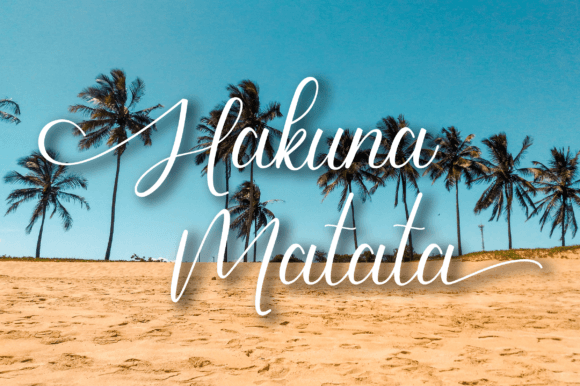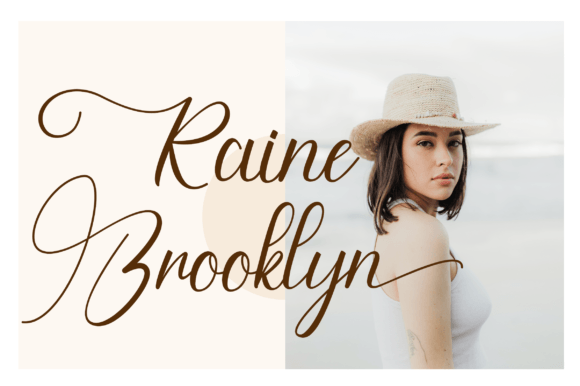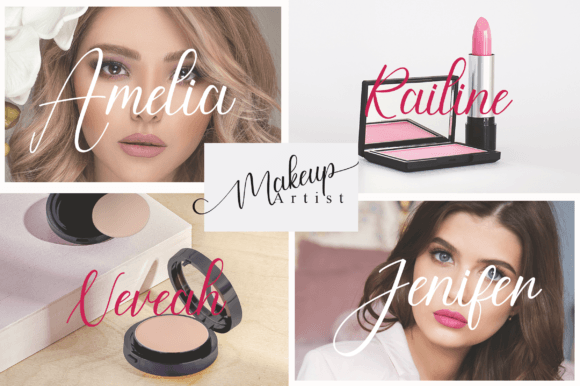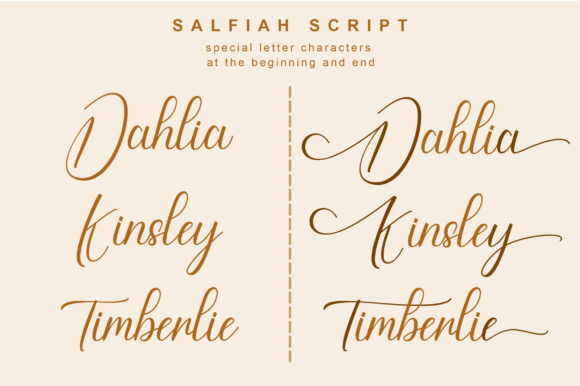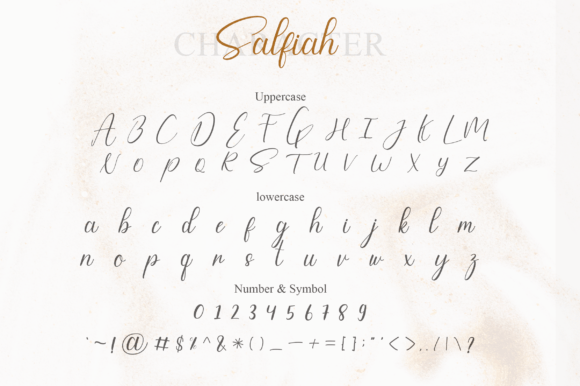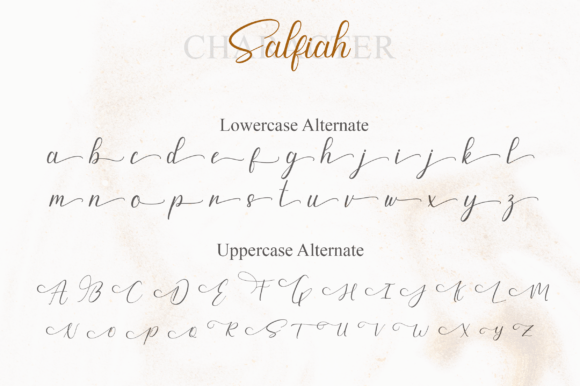
Introduction to Salfiah Font
Do you remember the moment when you’re brainstorming ideas for a creative project and the perfect font pops into your mind, elevating the entire design? For many designers, this moment is a game-changer, and it’s exactly what the Salfiah Font can offer. With its elegant and charming feel, this font is a design resource that can add a personal touch to any project.
Whether you’re working on a wedding invitation, a thank you card, or a logo, the Salfiah Font is sure to impress. Its high-quality design makes it perfect for a variety of applications, from digital to print. One of the unique features of this font is its ability to work seamlessly with a transparent background, giving your design a clean and sophisticated look.
Key Features of Salfiah Font
- High-quality font design ideal for creative projects, offering a unique and modern aesthetic.
- Available in a transparent background, allowing for seamless integration with various design elements.
- Designed with precision and attention to detail, ensuring a crisp and clear appearance at high resolutions (up to 300 DPI).
- Perfect for use in digital design, including logos, branding materials, and print projects.
Honest Review: Salfiah Font
I recently had the chance to work with the Salfiah Font, and I must say, it’s been a game-changer for my creative projects. As a designer, I’m always on the lookout for high-quality design resources that can help me bring my ideas to life. The Salfiah Font definitely delivers.
- ✨ The font is incredibly versatile and can be used for a wide range of creative projects, from logos to headings.
- ✨ The high-quality design makes it perfect for projects that require a professional touch.
- ✨ The transparent background option allows for seamless integration with other design elements.
- ⚠️ The font may not be suitable for very small text sizes, as the letters can become difficult to read.
- ⚠️ Some users may find the font too ornate or elaborate for their taste.
Overall, I’m thoroughly impressed with the Salfiah Font. Its high-quality design, versatility, and accessibility make it an excellent addition to any designer’s toolkit. I highly recommend it for any creative project that requires a professional touch.
Tips for Getting the Most Out of Salfiah Font
For optimal results, use the Salfiah Font on a transparent background to create a seamless design. You can also use it in conjunction with other high-quality design resources to create a unique and creative project.
The Salfiah Font is commonly used in graphic design, digital art, and creative projects that require a high-quality, unique font. It’s a great resource for designers and artists looking for a free download that offers a lot of creative possibilities.